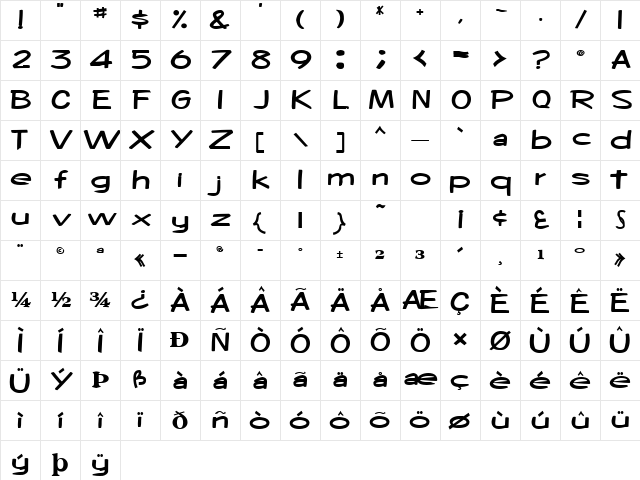
JurasakiFontBold83 Bold
Design Context for JurasakiFontBold83
JurasakiFontBold83 is a composed and adaptable typeface that performs quietly and consistently across a wide range of design contexts. Its bold stroke weight gives it real presence on the page.